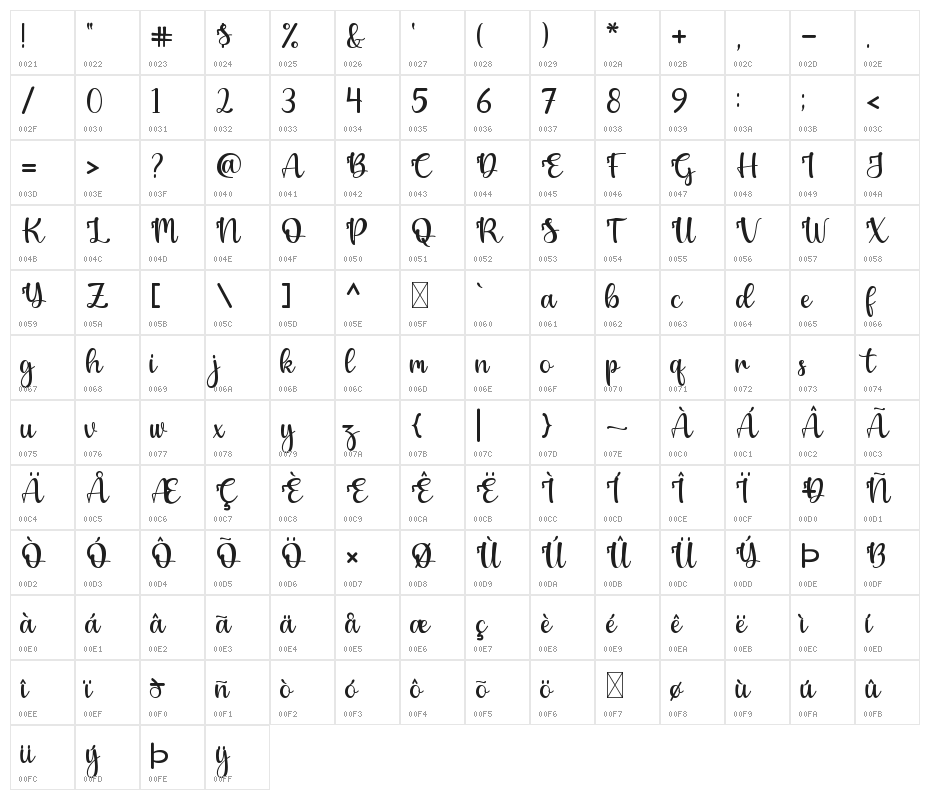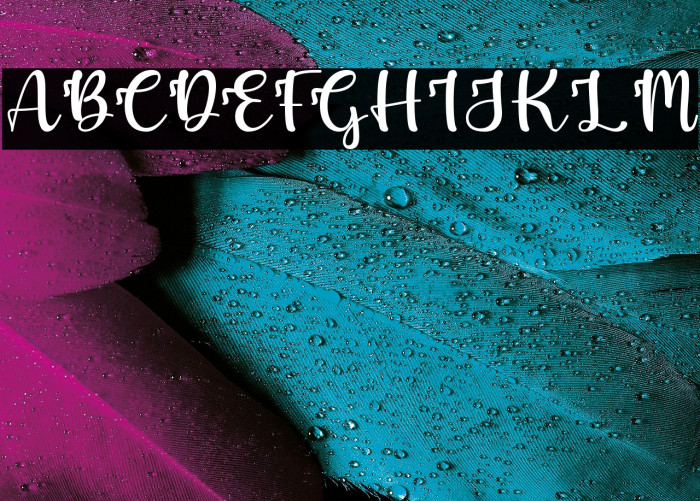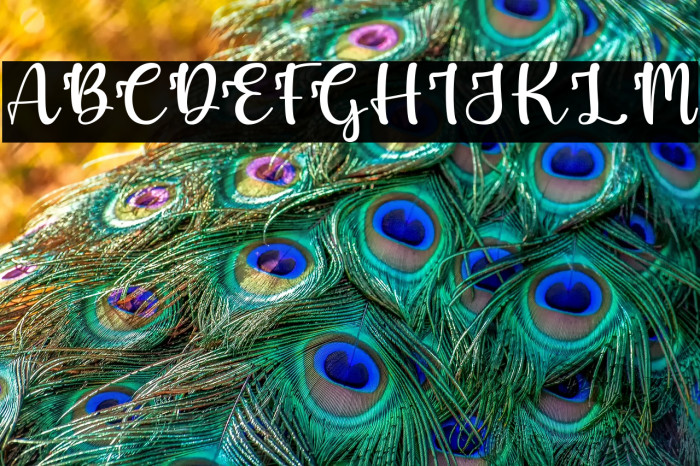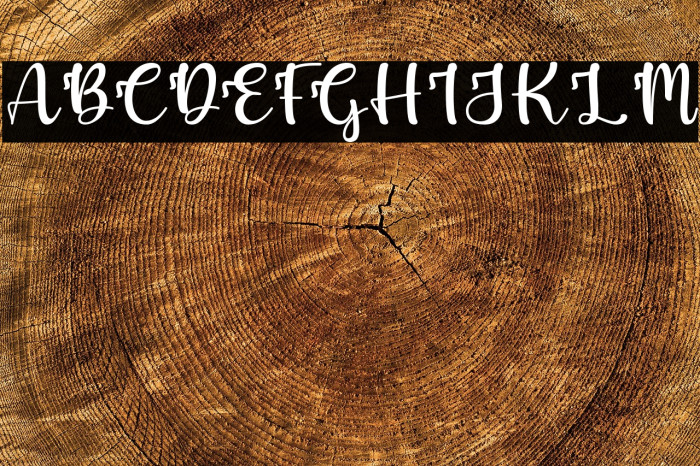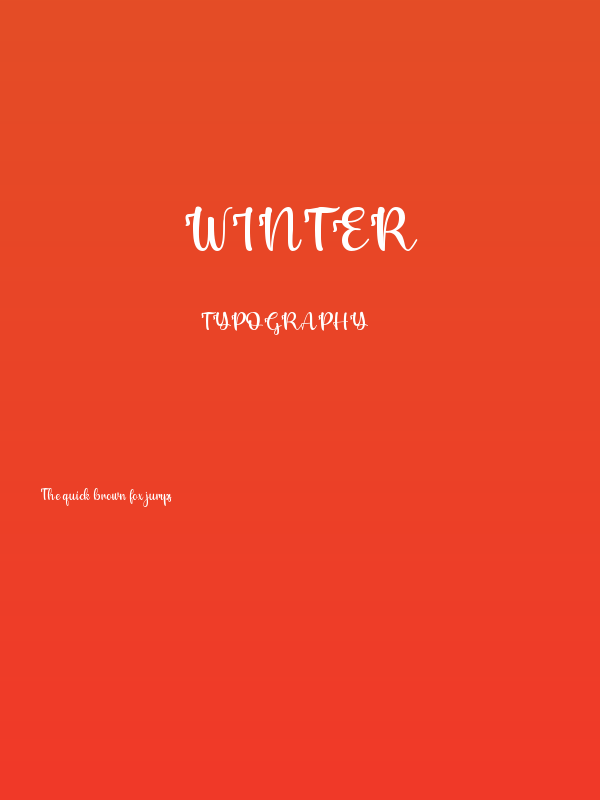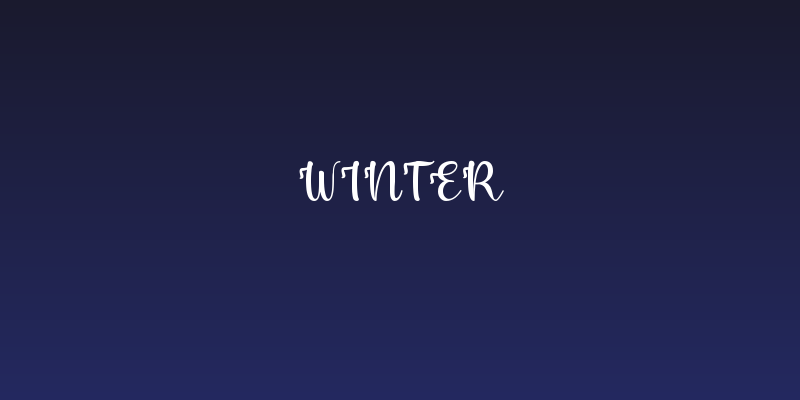
Winter Font
Winter Description
This font features a playful and elegant script style with a handwritten appearance. The uppercase letters are bold and slightly whimsical, with unique flourishes and loops that add character. The lowercase letters maintain a consistent flow, emphasizing a smooth and connected look typical of cursive writing. Numbers are clear and legible, matching the overall style with slight embellishments. Special characters are creatively designed, integrating seamlessly with the alphabet. This font exudes a friendly and approachable vibe, making it suitable for a variety of creative projects.